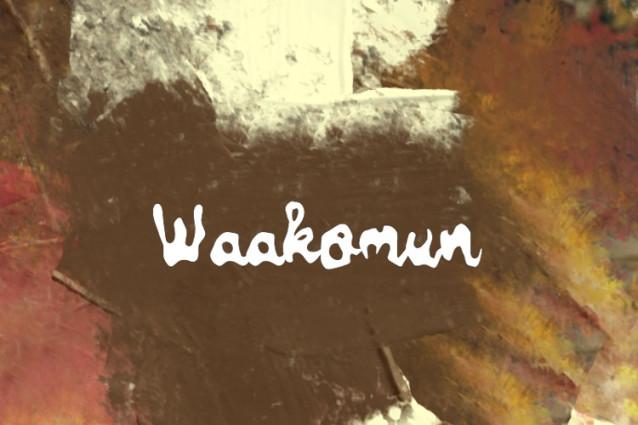
Waakomun Font
Waakomun Font, perfectly fit for branding, logo, wedding things, greeting cards, fashion, lookbook, marketing promotion, anytime you want to look fancy elegant but still casual.